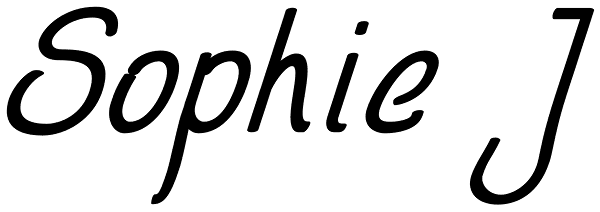
Sophie J
We were marveling one day at a colleague's handwriting. We noticed that it managed all at once to be casual and modern looking, yet admirably regular and legible as well. We took a few specimens of their writing as the inspiration for 'Sophie J', a...
Sophie J
Sophie J Bold